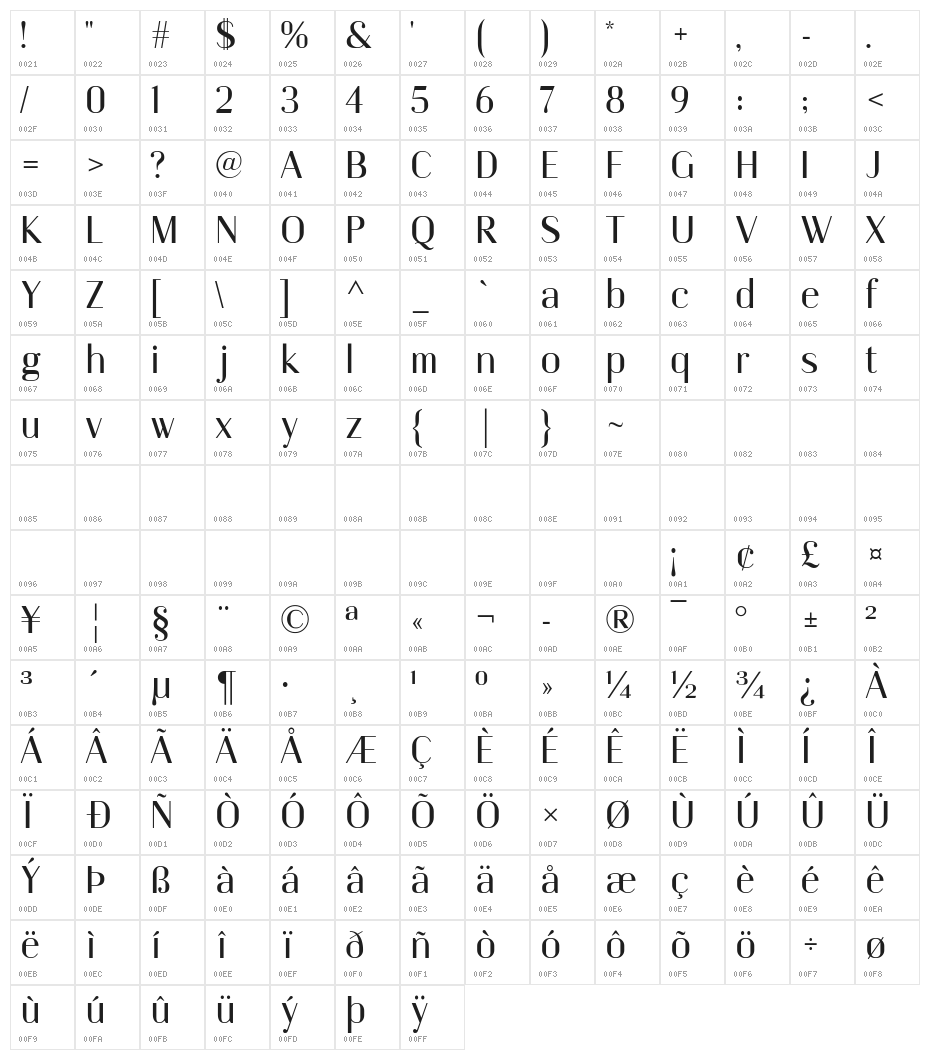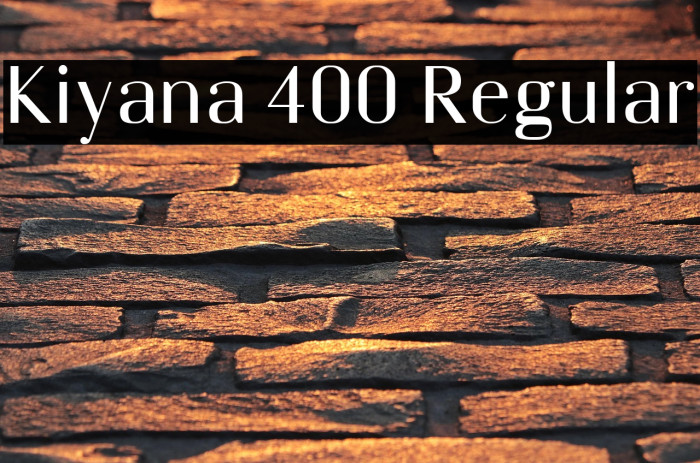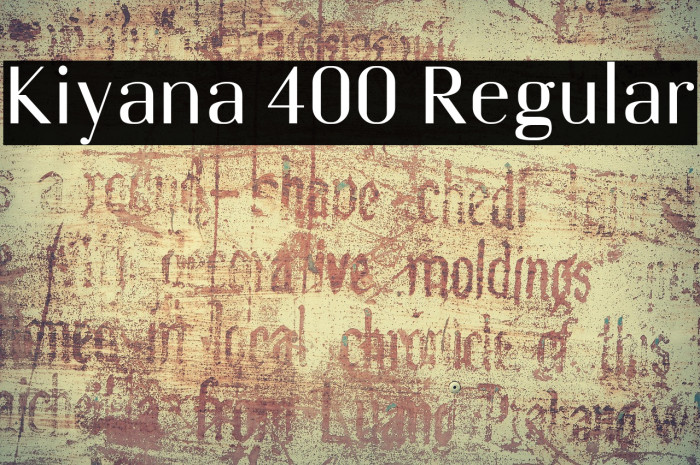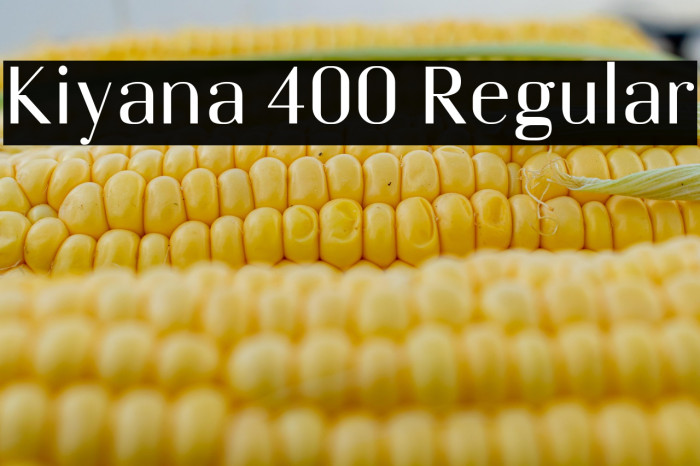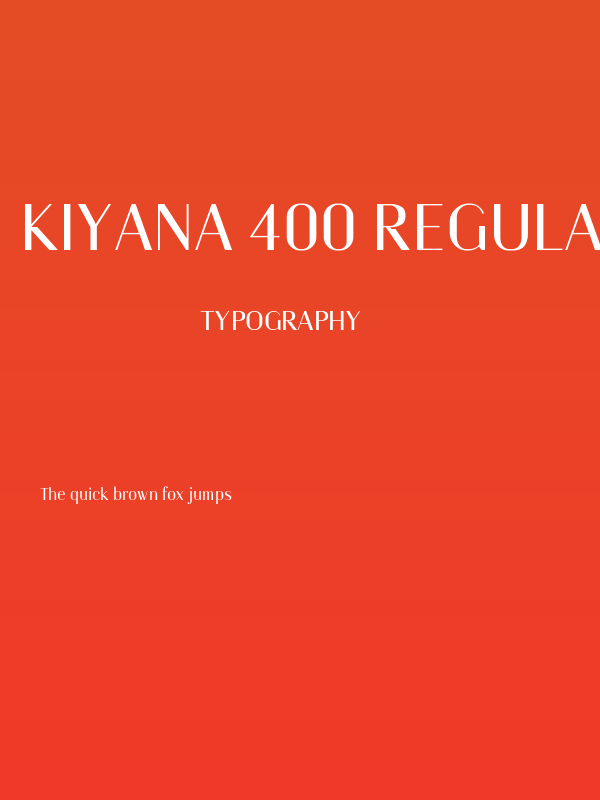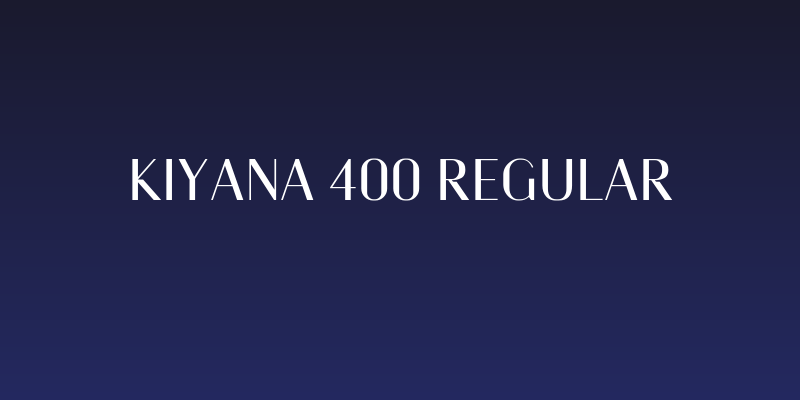
Kiyana 400 Regular Font
Kiyana 400 Regular Description
This font features a modern and sleek design with a high contrast between thick and thin strokes, giving it a sophisticated and elegant appearance. The uppercase letters are tall and narrow, while the lowercase letters maintain a consistent style that complements the uppercase. The numerals are distinct and clear, making them easily readable. Special characters are designed with the same attention to detail, ensuring uniformity across the font. The overall style is contemporary, making it suitable for various design applications.